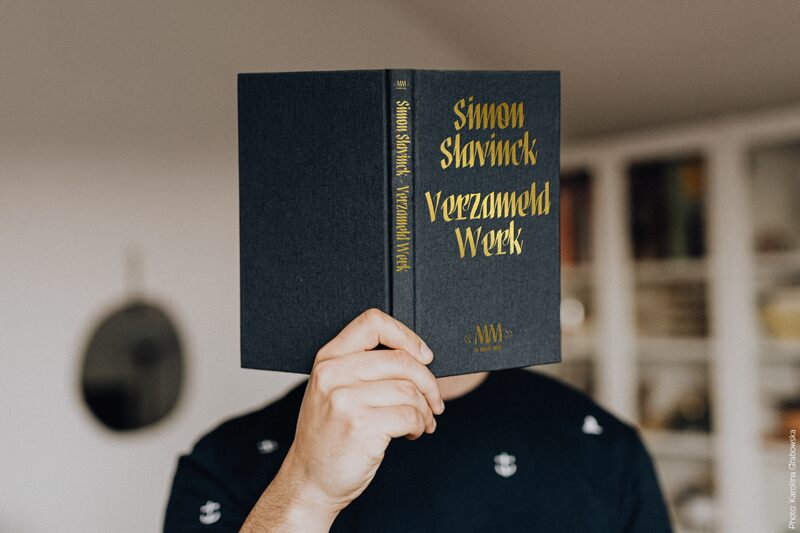
Cownaffle
Cownaffle font by Tup Wanders is an elegant Gothic script font, exhibiting an ornamental beauty with expressive curves and calligraphic influences. The condensed design lends a sophisticated, dramatic flair to any project.
Tja. Voorlopig de laatste, want ik heb de laatste tijd wat teveel tijd aan het maken van fonts besteed en te weinig aan m'n gezondheid. Deze letter is begonnen doordat ik die oliedomme lul Trump met z'n sharpie een handtekening zag zetten met vrijwel alleen verticale strepen. Hij mag dan een vuile fascist zijn, dat vond ik wel mooi. De eerste versie was wat saai, later heb ik er krulletjes en verbindingen bij gemaakt.